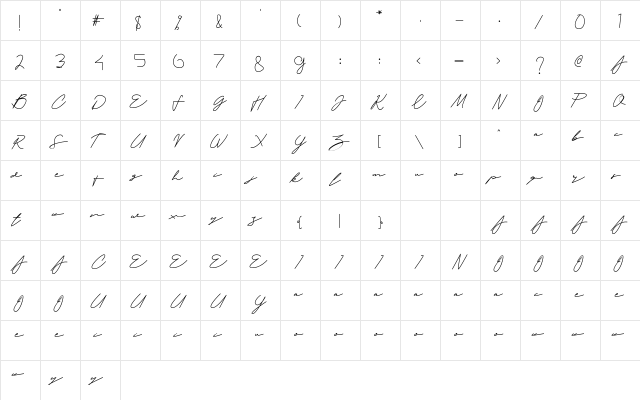
Symponi Regular
Design Context for Symponi Typeface
Symponi is a composed and adaptable typeface that performs quietly and consistently across a wide range of design contexts.